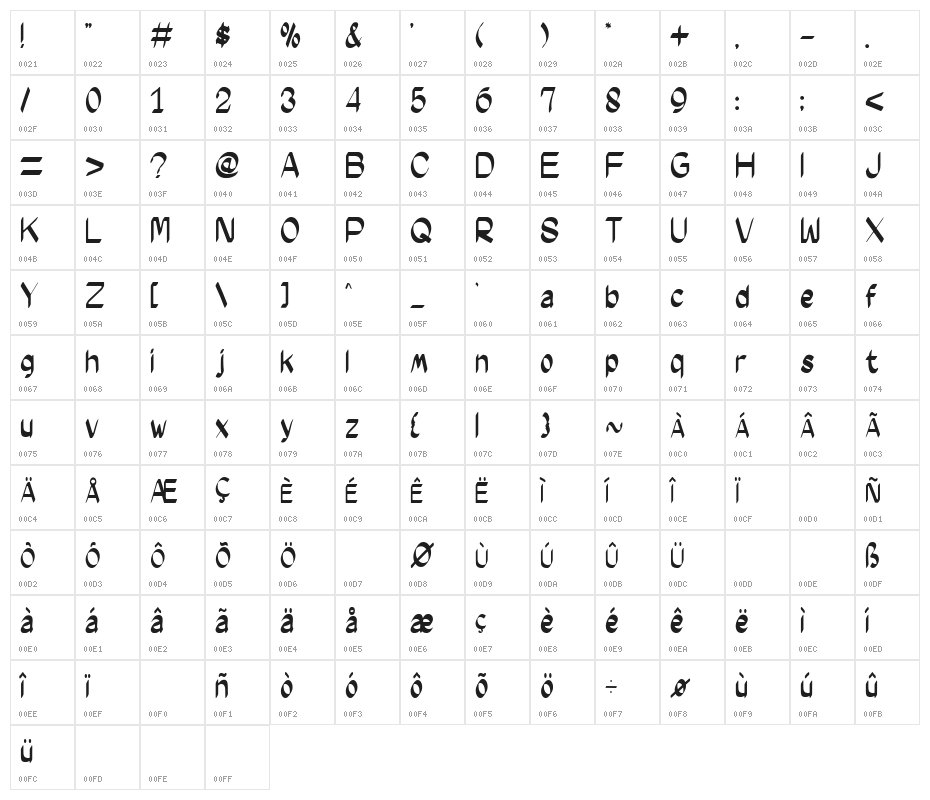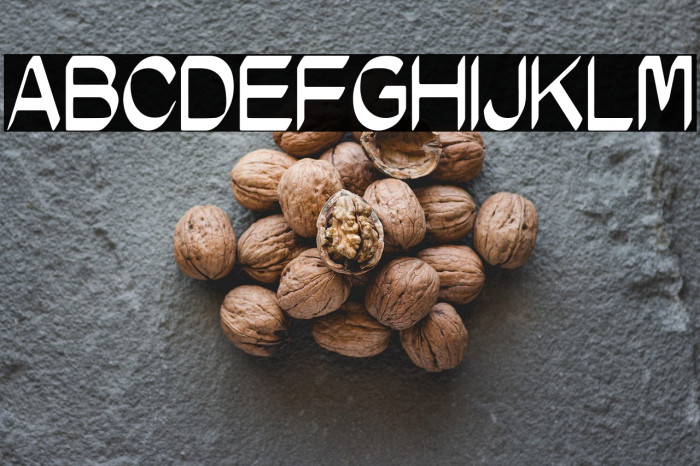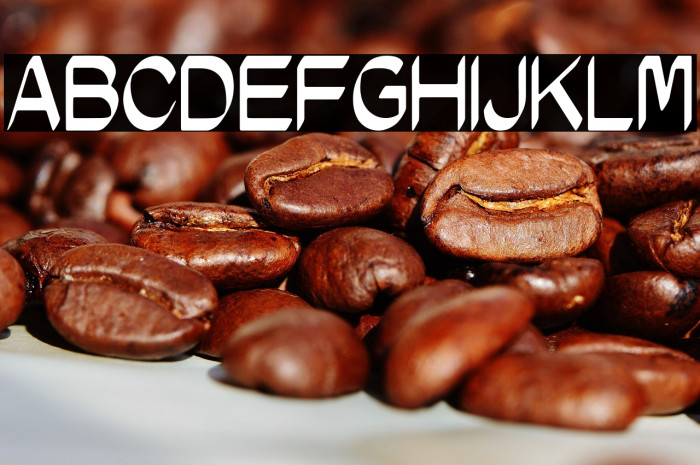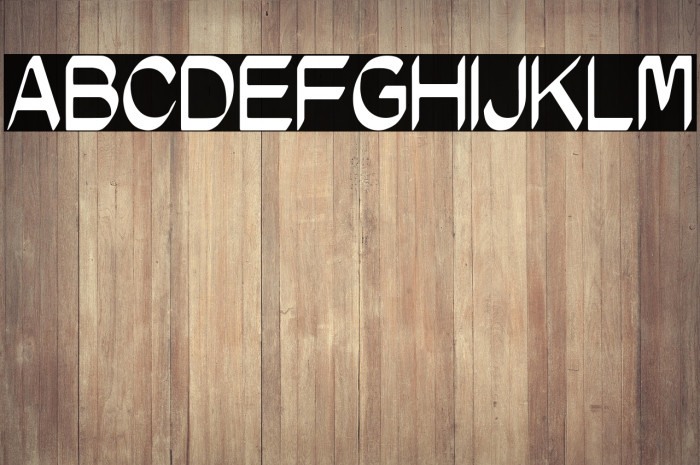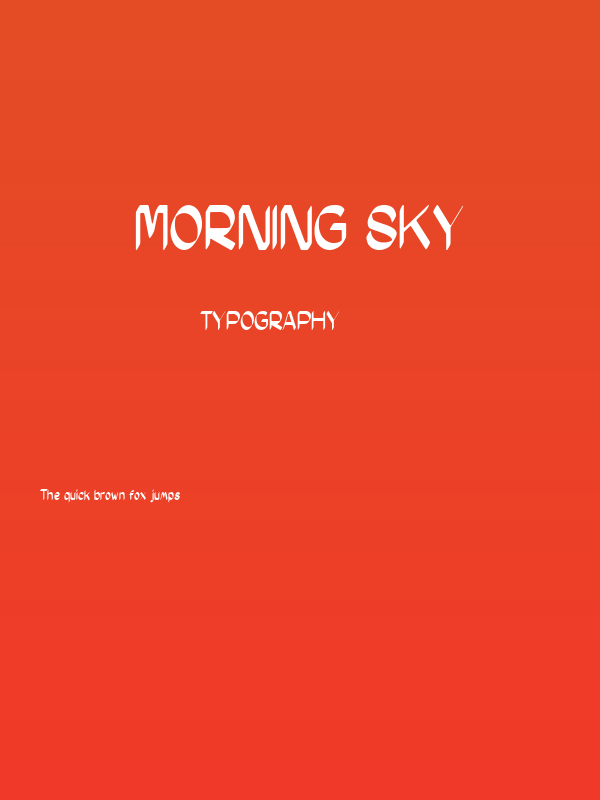
Morning Sky Font
Morning Sky Description
This font features a bold and dynamic style with a modern twist. The uppercase letters are angular and geometric, giving a futuristic feel, while the lowercase letters maintain a more rounded and approachable appearance. The numbers are consistent with the overall design, featuring sharp angles and clean lines. Special characters are well-integrated, maintaining the font's unique aesthetic. The overall look is both striking and versatile, making it suitable for a variety of creative projects.